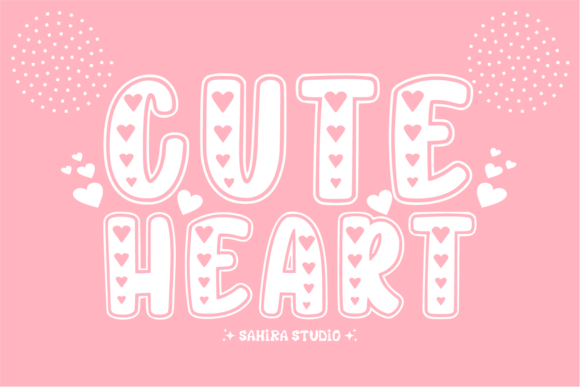
Cute Heart Font: The Ultimate Guide to This Romantic and Modern Decorative Font
In the world of typography, few fonts capture the essence of love and affection as beautifully as the Cute Heart Font. This romantic and modern decorative cartoon font is a delightful addition to any font library, and its versatility makes it perfect for a wide range of creative projects. In this article, we’ll dive into the world of Cute Heart Font, exploring its features, uses, and benefits, as well as providing tips and inspiration for incorporating it into your designs.
What Makes Cute Heart Font So Special?
Cute Heart Font is a unique and charming typeface that consists exclusively of uppercase letters. Each character is carefully crafted to be cute, romantic, and sweet, making it instantly recognizable. The font’s chunky letters are filled with adorable heart cutouts, giving it a playful and charming feel that’s perfect for a variety of creative projects.
The hand-drawn style of Cute Heart Font adds a warm, affectionate vibe that’s perfect for designs that require a touch of love and tenderness. Whether you’re working on a Valentine’s Day project, a baby shower invitation, or a kids’ design, this font is sure to bring a smile to your audience’s faces.
The Many Uses of Cute Heart Font
Cute Heart Font is an incredibly versatile typeface that can be used in a wide range of creative projects. Here are some ideas to get you started:
- Valentine’s Day projects: Create romantic and sweet designs for Valentine’s Day, including greeting cards, social media posts, and more.
- Baby shower invites: Add a touch of sweetness and innocence to your baby shower invitations with Cute Heart Font.
- Kids’ designs: Use this font to create fun and playful designs for kids, including children’s craft designs, coloring books, and more.
- Greeting cards: Create heartfelt and romantic greeting cards for special occasions, including anniversaries, birthdays, and more.
- Social media posts: Add a touch of love and affection to your social media posts with Cute Heart Font.
- Crafting and scrapbooking: Use this font to add a personal touch to your crafting and scrapbooking projects.
- Girly branding: Add a sprinkle of love to your girly branding with Cute Heart Font.
- Sublimated t-shirts, mugs, tote bags, and more: Use this font to create fun and playful designs for sublimated products.
- Animations and comic titles: Add a touch of whimsy and fun to your animations and comic titles with Cute Heart Font.
- Children’s essentials: Use this font to create adorable designs for children’s essentials, including nursery decor, kids’ furniture, and more.
The Benefits and Advantages of Cute Heart Font
Cute Heart Font offers a range of benefits and advantages that make it a great addition to any font library. Here are a few:
- Unique and recognizable: This font is instantly recognizable and will help your designs stand out from the crowd.
- Versatile: Cute Heart Font can be used in a wide range of creative projects, from Valentine’s Day designs to kids’ crafts.
- Playful and charming: The font’s playful and charming feel makes it perfect for designs that require a touch of whimsy and fun.
- Easy to read: Despite its decorative nature, Cute Heart Font is easy to read and understand.
- Hand-drawn style: The font’s hand-drawn style adds a warm, affectionate vibe that’s perfect for designs that require a personal touch.
Tips and Inspiration for Using Cute Heart Font
Here are a few tips and inspiration for using Cute Heart Font in your designs:
- Experiment with different colors: Cute Heart Font looks great in a range of colors, from bright and bold to soft and pastel.
- Pair with other fonts: Try pairing Cute Heart Font with other fonts to create a unique and interesting contrast.
- Use in combination with graphics: The font’s playful and charming feel makes it perfect for use in combination with graphics, such as hearts, flowers, and more.
- Keep it simple: Don’t be afraid to keep your design simple and focus on the font itself.
- Have fun: Most importantly, have fun and be creative with Cute Heart Font!
In conclusion, Cute Heart Font is a romantic and modern decorative cartoon font that’s perfect for a wide range of creative projects. Its unique and recognizable characters, playful and charming feel, and hand-drawn style make it a great addition to any font library. Whether you’re working on a Valentine’s Day design, a kids’ craft project, or a girly branding campaign, Cute Heart Font is sure to bring a touch of love and affection to your designs.